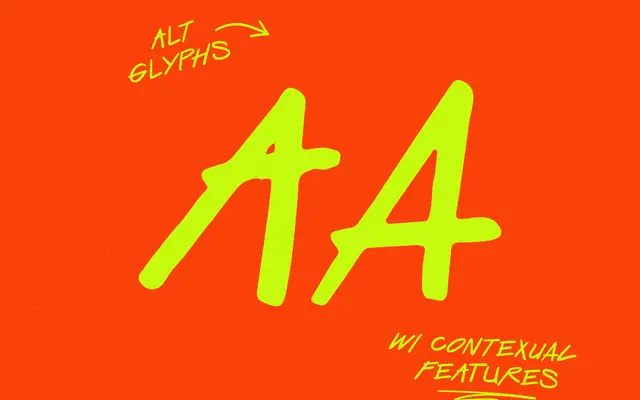
Slowpoke
A single-weight architectural handwriting face with contextual alternates that cycle through A-Z and 0-9 glyph variations to replicate natural hand-lettered irregularity.
Drawn from the overlap between architectural drafting lettering and the designer's own scribbled notes, the face carries an informal, human quality well suited to branding, presentation graphics and printed collateral. Contextual alternates automatically rotate through alternate forms for each letter and numeral, reducing the repetition that typically undermines single-style handwriting fonts. Western European language support is broad, covering Icelandic, Welsh and other extended Latin characters across 220 glyphs.
The face is explicitly described as a pseudo-architectural handwriting typeface, blending personal scribble with the drafting-style lettering common to architectural practice. This places it firmly in the display/script-adjacent space rather than a conventional script or sans category.